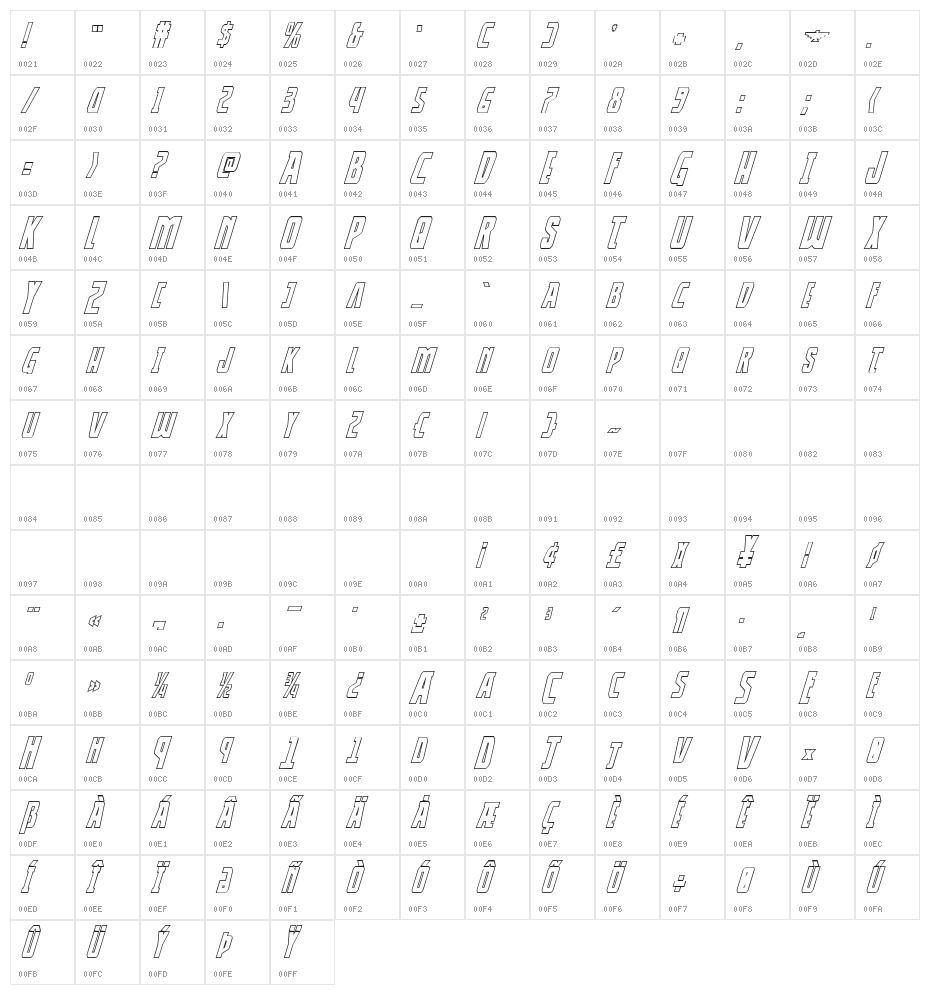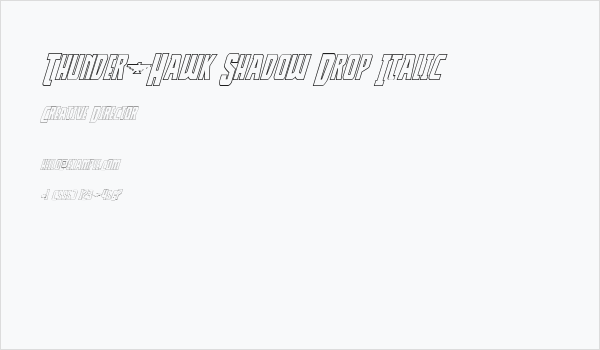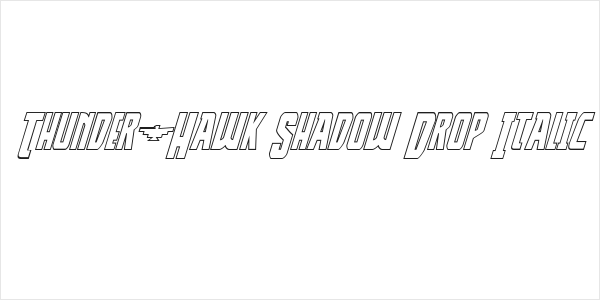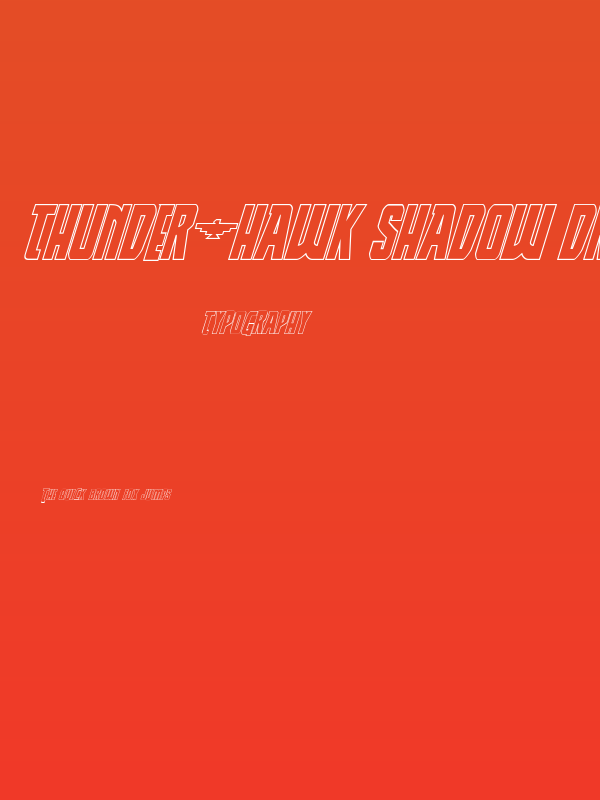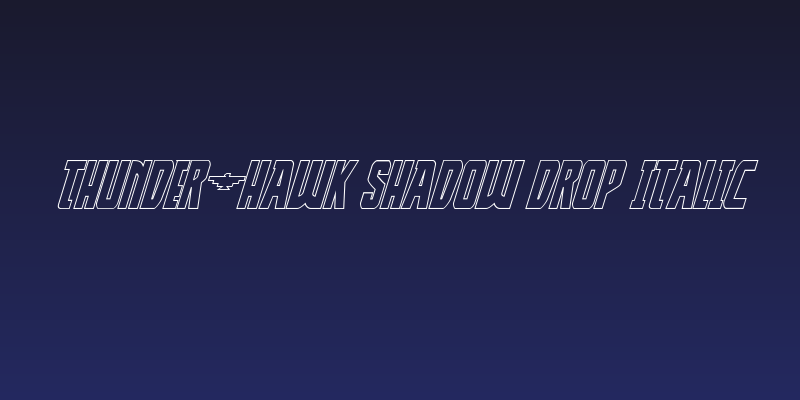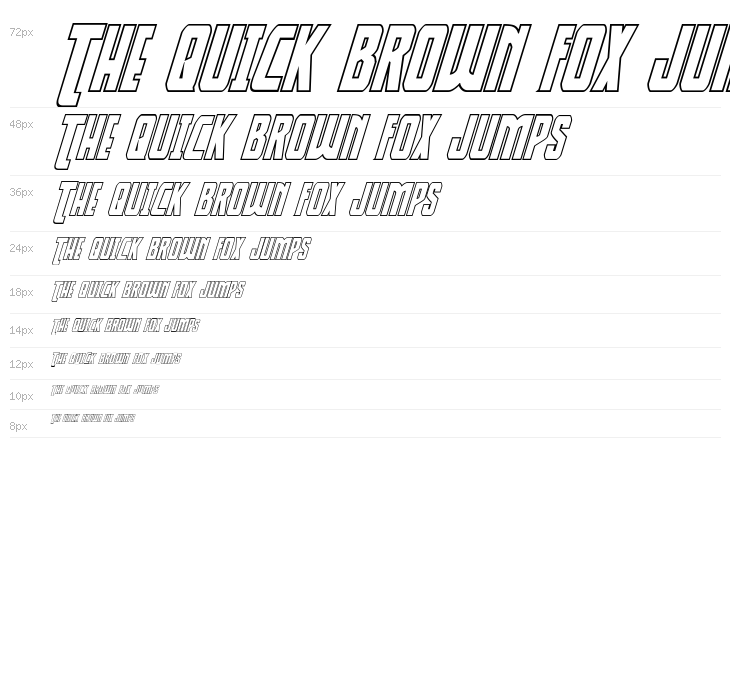
Thunder-Hawk Shadow Drop Italic Font
Thunder-Hawk Shadow Drop Italic Description
This font features a bold, dynamic style with a distinct shadow drop effect that gives it a three-dimensional appearance. The characters are italicized, adding a sense of motion and speed. The angular design and sharp edges contribute to a futuristic and edgy look, making it stand out in any design. The uppercase and lowercase letters maintain a consistent style, with numbers and special characters following the same aesthetic. The font's unique shadow effect enhances its visual impact, making it suitable for eye-catching designs.
| Proposed Projects | Ideal for sports branding, video game titles, posters, and any project requiring a bold, energetic look. |